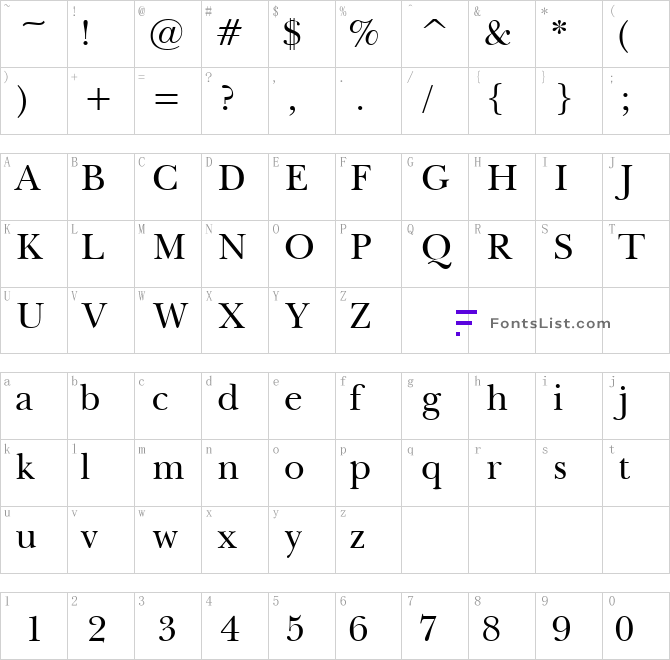
- Font Name:Baskerton
Baskerton-copy-1-.ttf is a very beautiful artistic font, Baskerton-copy-1-.ttf is widely used in the design and printing of various books and pictures,Baskerton-copy-1-.ttf has a strong visual impact,Baskerton-copy-1-.ttf is a commonly used font in newspapers, magazines and books, and is used in posters, e-commerce Poster design, store design, logo design, font design and other fields.Baskerton-copy-1-.